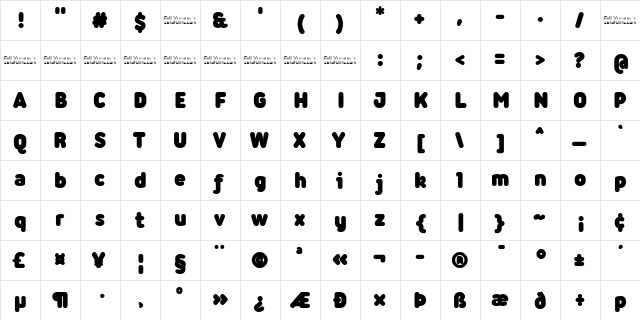
Iconic Trial Heavy
| Foundry | Zetafonts |
| Designer | Francesco Canovaro |
Design Context for Iconic Trial Typeface
Iconic Trial is a composed and adaptable typeface that performs quietly and consistently across a wide range of design contexts.